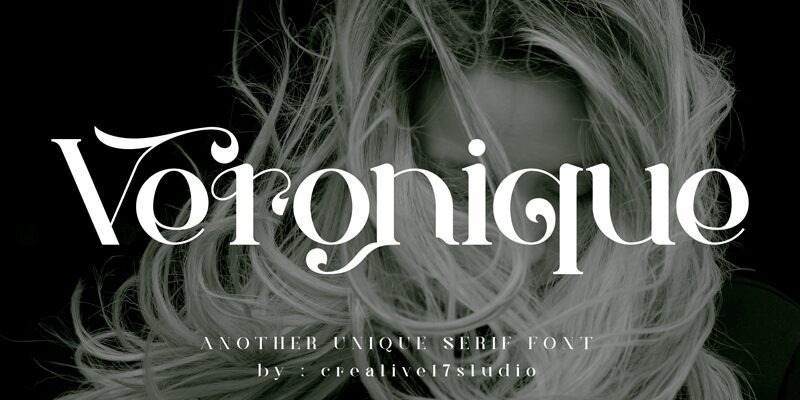
Veronique, a modern serif font designed by Irfan Hidayat, is perfect for projects that require a timeless yet contemporary look. Use it in publications, logos, posters and website designs to add elegance and sophistication.